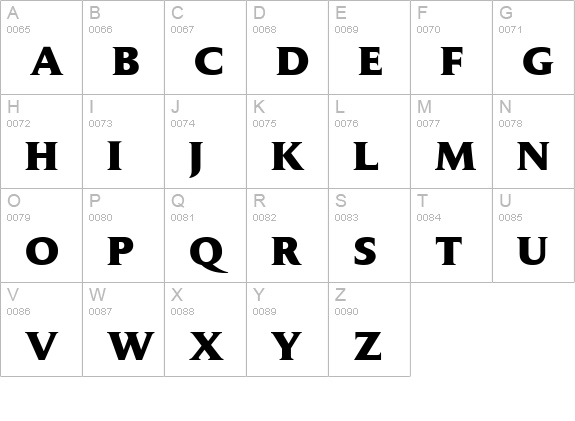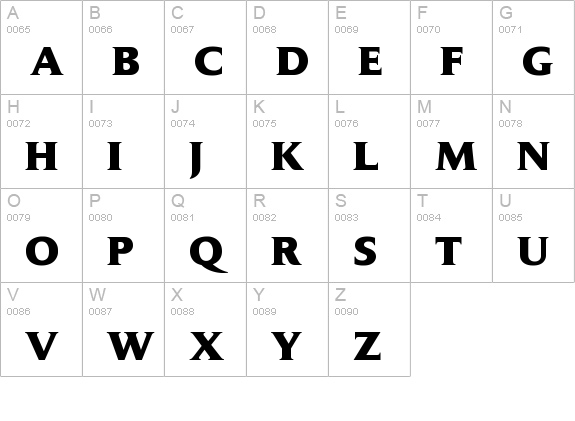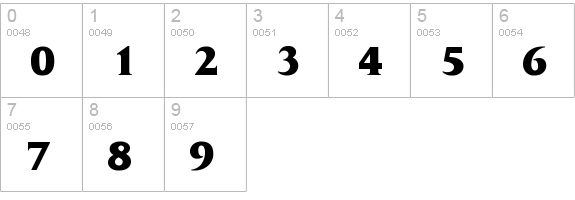
Daily News Extra Bold Font Details
Daily News Extra Bold is a strong, high-contrast variant in the Daily typeface family \xE2\x80\x94 well suited to headlines, attention-grabbing titles, and strong calls-to-action.
Introducing Daily News Extra Bold, a captivating and authoritative font that demands attention with its bold and powerful presence. Designed for those seeking to make a bold statement, this font exudes confidence and strength with its thick, robust letterforms. Daily News Extra Bold is the perfect choice for headlines, posters, magazine covers, and any design project that requires a strong and impactful visual impact. Its generous letter-spacing and distinct letterforms make it highly legible, ensuring that your message is communicated effectively to your audience. But what sets Daily News Extra Bold apart is its availability as a free download at FontsMarket.com. Yes, you read that right - this extraordinary font is freely accessible to all, allowing designers, creatives, and enthusiasts alike to create stunning visuals without any cost. FontsMarket.com offers a vast library of fonts, and Daily News Extra Bold's inclusion as a free font option is a testament to their commitment to providing quality resources to the design community. So why settle for ordinary when you can elevate your designs with the commanding presence of Daily News Extra Bold? Download it for free at FontsMarket.com and let your creativity soar to new heights. Whether you're designing for print or digital media, this font will make a lasting impression and leave a mark that is both memorable and impactful. Don't miss out on this opportunity to enhance your designs with Daily News Extra Bold - the power of bold typography is just a few clicks away.